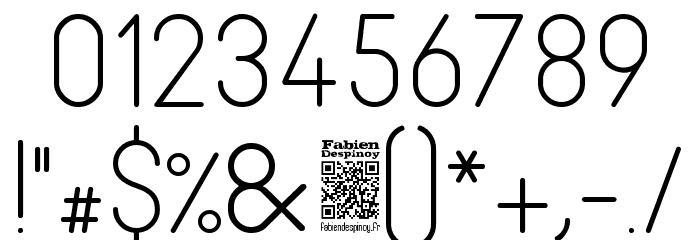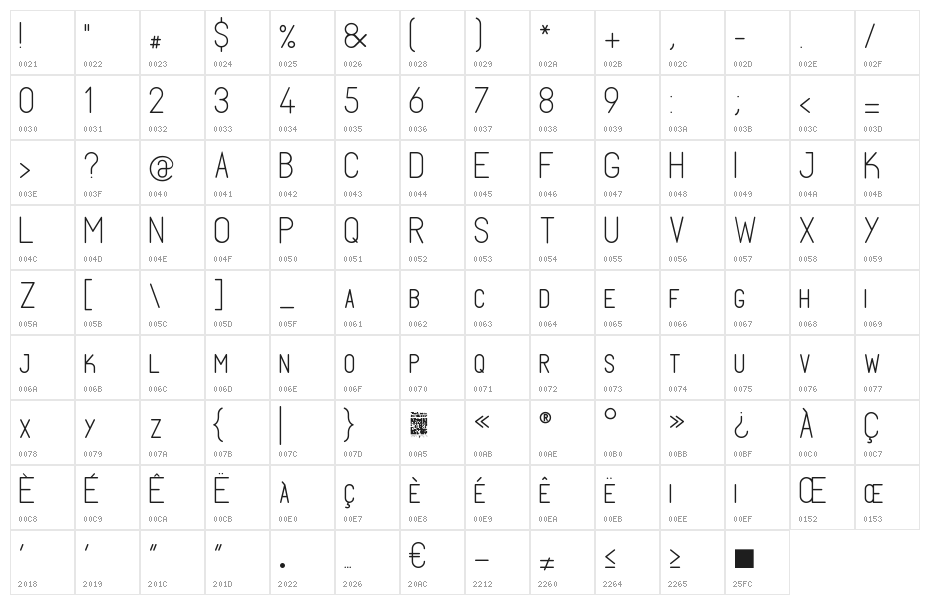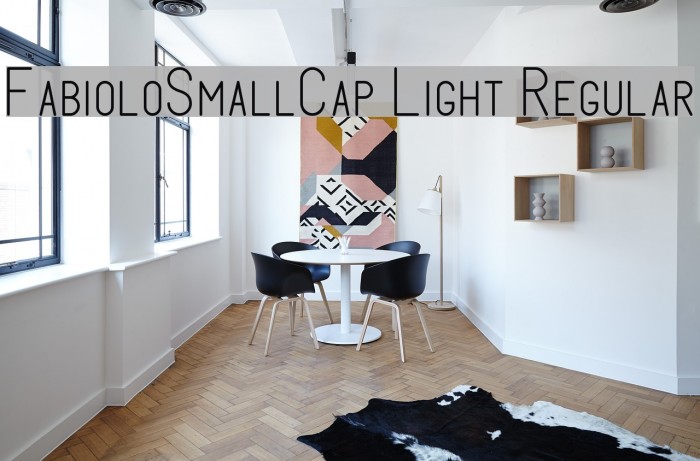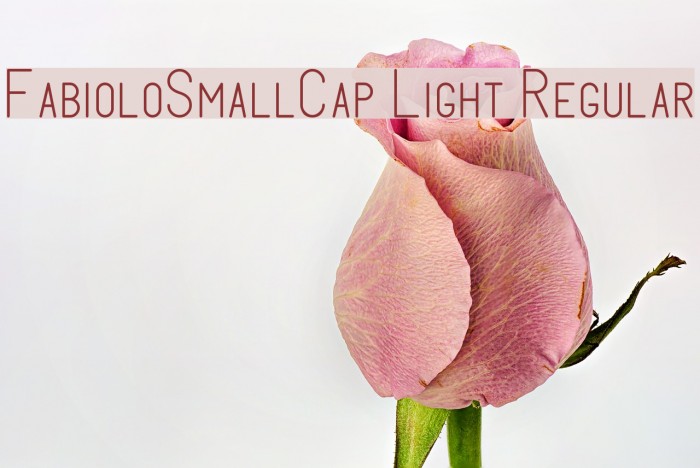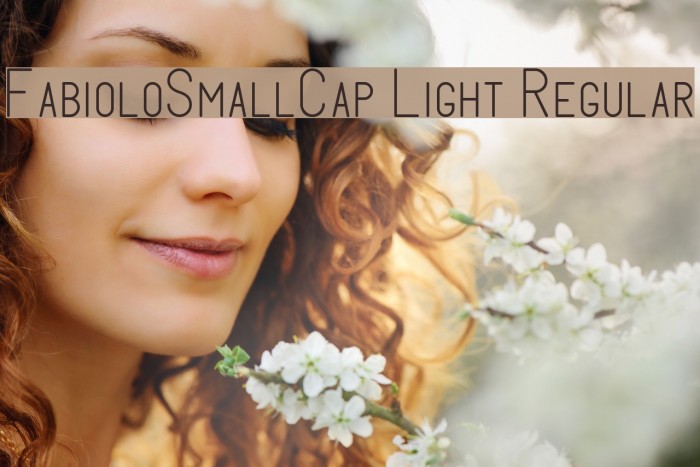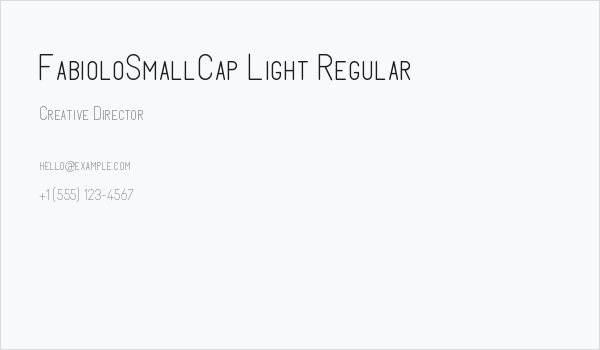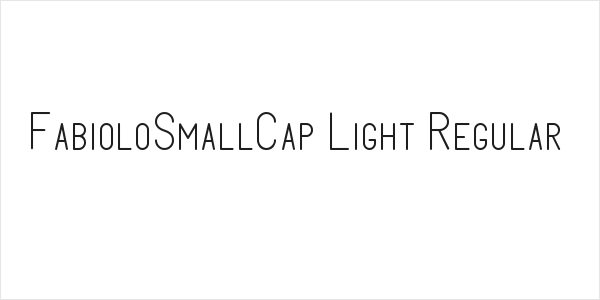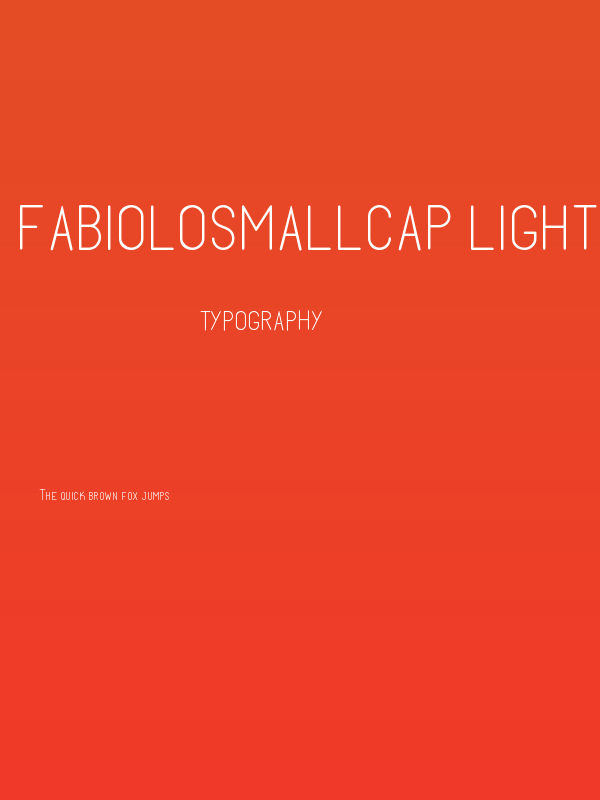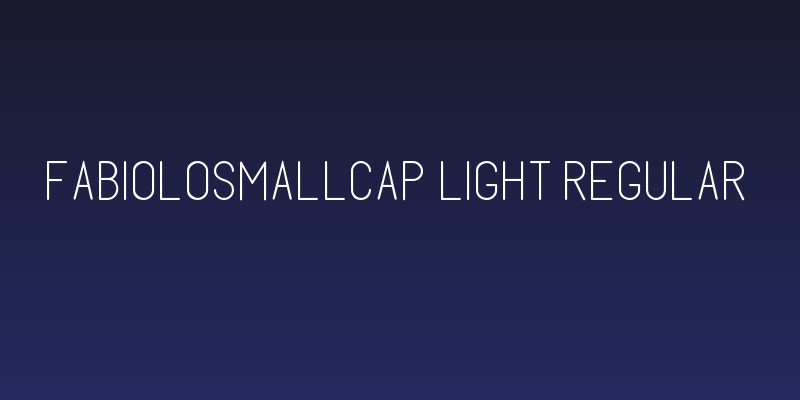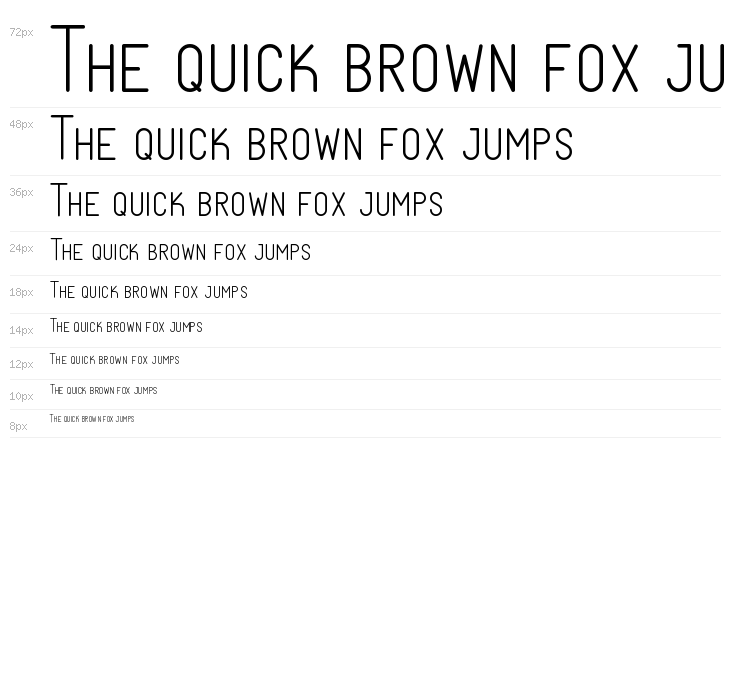
FabioloSmallCap Light Regular Font
FabioloSmallCap Light Regular Description
This font features a clean and modern design with a light and airy feel. The characters are narrow and elongated, giving it a sleek appearance. The uppercase and lowercase letters maintain a consistent height, contributing to a uniform look. The numerals and special characters are designed with the same thin strokes, ensuring a cohesive style throughout. The font's simplicity and elegance make it suitable for a variety of design projects, offering a contemporary touch with its minimalist approach.
| Proposed Projects | Ideal for modern branding, minimalist design projects, digital interfaces, and editorial layouts. |